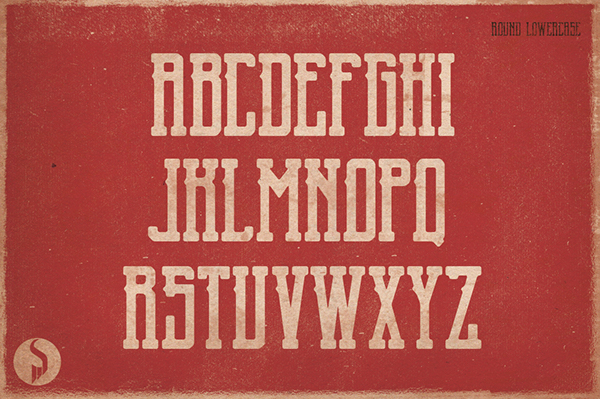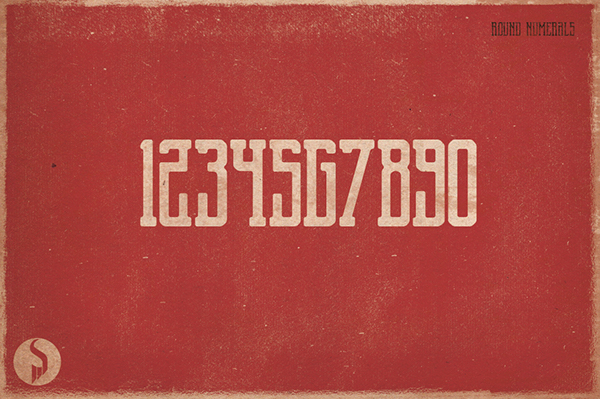
Blnc Round Font
Blnc is a font family, which includes five weights (Regular, Round, Rough, Dust and Vintage), Blnc Round Font designed and shared by Swistblnk Design Std. Blnc inspired by Old Western lettering with some Modern touch. Great for almost all of your designing needs including headline, labels, logo, etc. If you like Vintage Hand drawn style, Blnc come with vintage style and add some dust to feel more hand drawn.